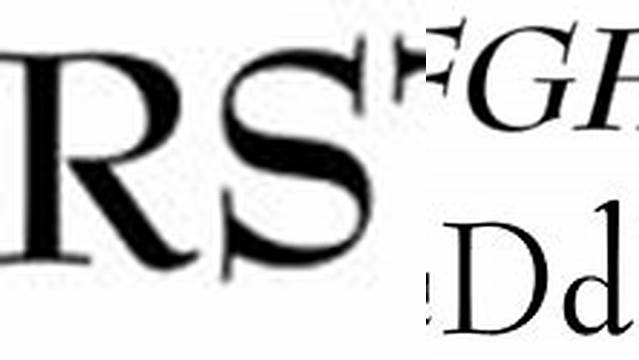
What is Bernhard Modern STD Bold?
Bernhard Modern STD Bold is a typeface that exudes elegance and sophistication. Created by Lucian Bernhard in the early 20th century, this font is characterized by its clean lines, balanced proportions, and distinct Art Deco flair. The bold variant amplifies these characteristics, making it a powerful choice for headlines, branding, and display purposes. Its geometric construction provides a sense of modernity while retaining a classic, timeless appeal. The uppercase letters are particularly striking, with their strong vertical strokes and refined curves. The lowercase letters complement the uppercase well, maintaining readability and harmony. This font's versatility allows it to be used in various design projects, from print to digital media. The Bernhard Modern STD Bold is not just a font; it's a statement. It speaks of quality, attention to detail, and a respect for design history. Choosing this font can elevate your project and give it a touch of sophistication that sets it apart. When used correctly, it can communicate messages effectively, whether it's for advertising, editorial design, or corporate branding. Its enduring popularity is a testament to its quality and timelessness. It has remained a favorite among designers for decades, and its appeal continues to grow as new generations discover its beauty and versatility. So, if you're looking for a font that can add a touch of class and sophistication to your designs, Bernhard Modern STD Bold is an excellent choice. Its bold presence and classic design make it a standout option that will leave a lasting impression. Remember to always consider the context in which you are using the font and ensure that it aligns with the overall message and aesthetic you are trying to achieve.
Using Bernhard Modern STD Bold in Your Projects
Bernhard Modern STD Bold is a versatile font that can elevate various design projects. Its bold and elegant appearance makes it particularly well-suited for headlines, logos, and branding materials. When using this font, consider its visual impact and how it complements the overall design aesthetic. For headlines, Bernhard Modern STD Bold can grab attention and convey a sense of sophistication. Its strong presence ensures that your message stands out, whether it's in print or digital media. When using it for logos, the font's unique character can help create a memorable and distinctive brand identity. Its clean lines and balanced proportions make it easy to read and recognize, even at smaller sizes. In branding materials such as business cards, letterheads, and brochures, Bernhard Modern STD Bold can add a touch of elegance and professionalism. It communicates quality and attention to detail, which can enhance your brand's reputation. To make the most of this font, pay attention to kerning and letter spacing. Proper kerning ensures that the letters are spaced evenly, improving readability and visual appeal. Experiment with different font sizes and weights to find the perfect balance for your design. When pairing Bernhard Modern STD Bold with other fonts, choose complementary typefaces that don't clash with its style. Sans-serif fonts often work well as body text, providing a clean and modern contrast to the bold serif of Bernhard Modern STD Bold. Consider the overall tone and message of your design when selecting font pairings. Whether you're creating a vintage-inspired design or a modern, minimalist layout, the right font combination can enhance the overall impact of your work. By carefully considering these factors, you can effectively use Bernhard Modern STD Bold to create stunning and impactful designs that leave a lasting impression.
Alternatives to Bernhard Modern STD Bold
If you're unable to find a free and legal version of Bernhard Modern STD Bold, or if you're looking for similar fonts to expand your design options, several excellent alternatives are available. These fonts capture the essence of Bernhard Modern STD Bold's elegance and sophistication while offering their unique characteristics. One popular alternative is Bodoni. Bodoni is a classic serif font known for its high contrast between thick and thin strokes and its elegant appearance. It shares a similar aesthetic with Bernhard Modern STD Bold and can be used in many of the same contexts. Another option is Didot. Didot is another elegant serif font that is characterized by its refined letterforms and sophisticated look. It's a great choice for headlines, logos, and branding materials, and it pairs well with sans-serif fonts for body text. If you're looking for a more modern alternative, consider Playfair Display. Playfair Display is a transitional serif font that combines classic design elements with a contemporary feel. It's a versatile font that can be used in a variety of design projects, from web design to print design. For a bolder option, Bebas Neue is a sans-serif font that offers a similar visual impact to Bernhard Modern STD Bold. Bebas Neue is a clean and modern font that is perfect for headlines, posters, and other display purposes. When choosing an alternative to Bernhard Modern STD Bold, consider the overall tone and message of your design. Select a font that complements your design aesthetic and enhances the visual impact of your work. Experiment with different font pairings to find the perfect combination for your project. By exploring these alternatives, you can find a font that meets your design needs and helps you create stunning and impactful visuals.